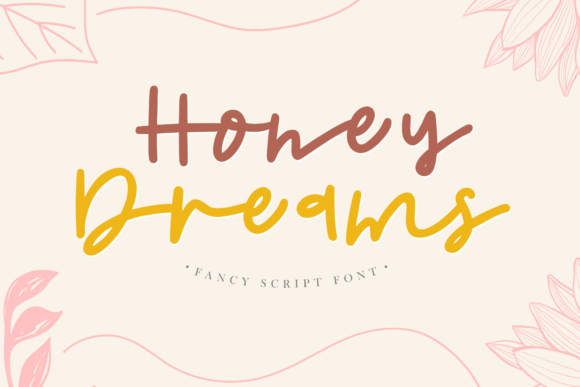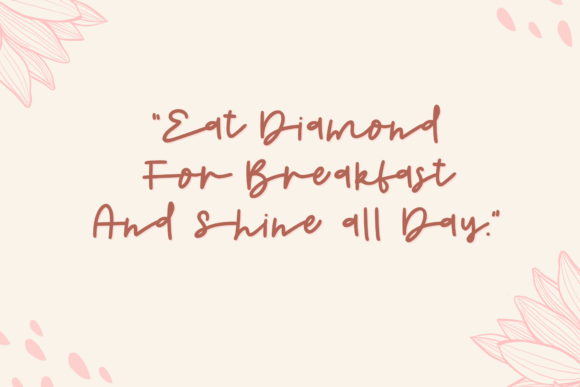
About Honey Dreams Font
Honey Dreams is a classy monoline script font that exudes elegance and timelessness. With its unique and beautiful touch, this font is the perfect choice for creating eye-catching logos, branding materials, and memorable quotes. Each letter in Honey Dreams is meticulously crafted with a distinctive and captivating style, bringing your designs to life.
The monoline script style of Honey Dreams adds a sense of sophistication and simplicity to your designs. Its smooth and consistent strokes create a sleek and refined look that captures attention. Whether you’re working on a striking logo, a cohesive branding package, or inspiring quotes, Honey Dreams adds a touch of class that leaves a lasting impression.
The timeless nature of Honey Dreams ensures that your designs will remain relevant and captivating for years to come. Its handwritten aesthetic adds a personal and authentic feel, making your logos, branding, and quotes stand out with a touch of elegance and charm. Honey Dreams’ versatility allows it to adapt to various design styles and themes, making it a valuable asset in your creative endeavors.
By incorporating Honey Dreams into your designs, you unlock its potential to captivate and engage your audience. The font’s unique and beautiful touch brings a sense of artistry and personality that sets your designs apart. Whether you’re designing a sophisticated logo, a memorable branding package, or inspiring quotes, Honey Dreams adds a touch of magic and refinement that elevates your creations.
Every letter in Honey Dreams has its own distinctive and beautiful touch, contributing to the overall aesthetic of your design. The carefully crafted curves and elegant flourishes add a sense of craftsmanship and visual appeal. Honey Dreams’ attention to detail ensures that your designs exude a sense of quality and sophistication.
In summary, Honey Dreams is a classy monoline script font that adds a unique and beautiful touch to your designs. Its versatility makes it suitable for creating eye-catching logos, branding materials, and memorable quotes. Embrace the elegance and charm of Honey Dreams and watch as it brings your designs to life, captivating your audience with its timeless beauty and refined style.